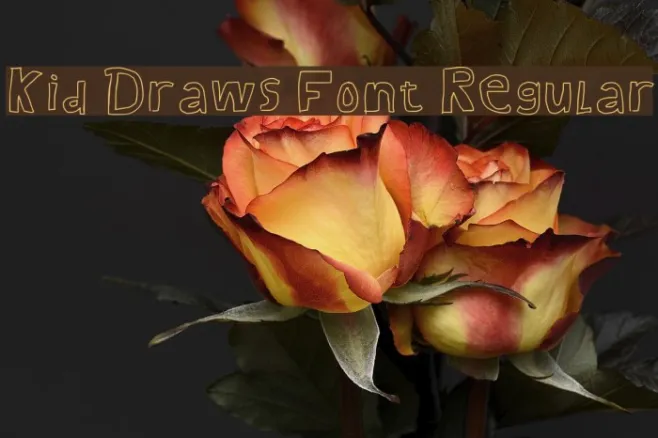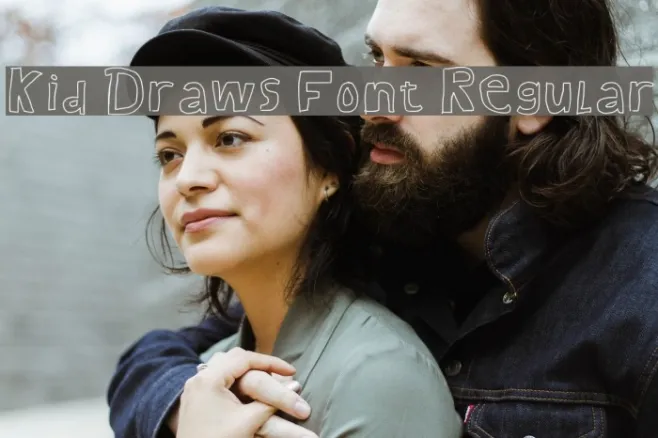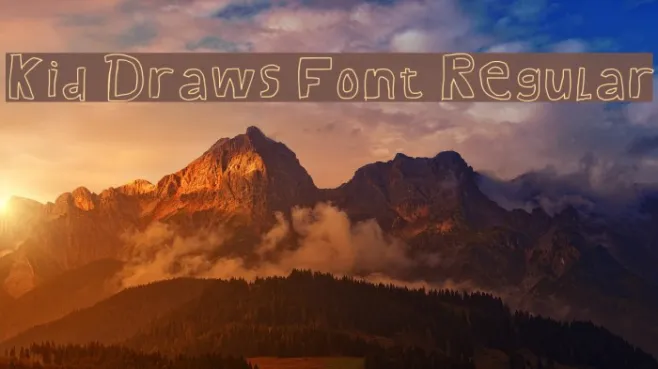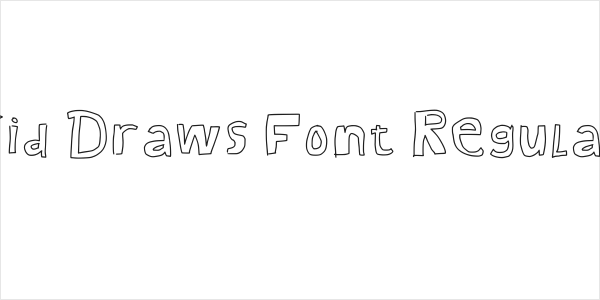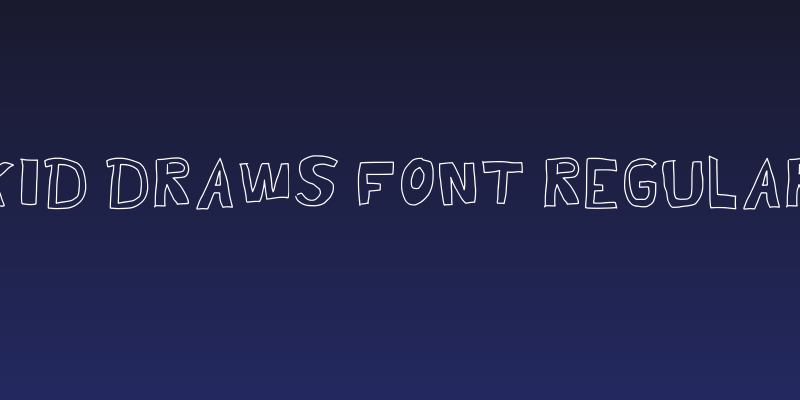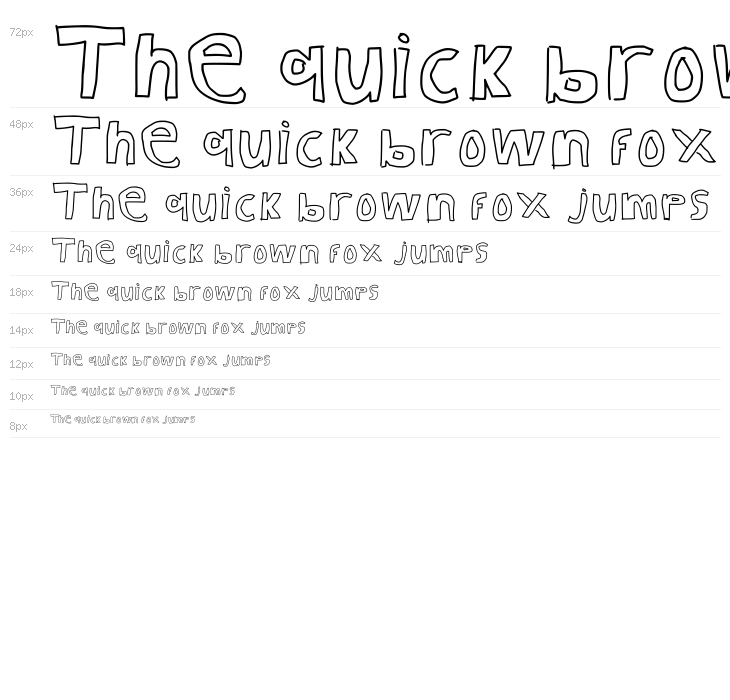
Kid Draws Font Regular Font
Kid Draws Font Regular Description
This playful and whimsical font captures the essence of a child's handwriting, featuring irregular and uneven strokes that give it a charming, hand-drawn appearance. Each character is unique, with varying widths and heights, adding to its informal and casual style. The font maintains a consistent line weight, which contributes to its approachable and friendly feel. Its quirky and spontaneous design makes it ideal for projects that aim to convey creativity and fun. The font includes a full set of uppercase and lowercase letters, numbers, and a variety of special characters, all maintaining the same hand-drawn aesthetic.
Overall StylePlayful
Proposed ProjectsIdeal for children's books, educational materials, playful branding, and creative posters.